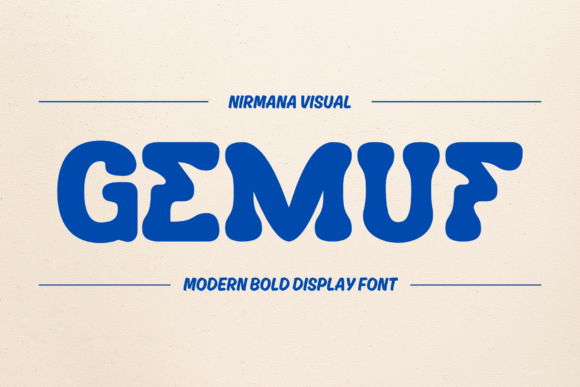
Unlock the Power of Retro Branding with Gemuf Font
Have you ever stared at a blank design canvas, trying to bring your creative vision to life, only to find yourself stuck on the perfect font? We’ve all been there. The struggle is real, but what if you had the perfect font to break through that creative block? Introducing Gemuf – the quintessential Retro Branding Logo Font.
Gemuf Font is designed to provide unparalleled typographic harmony, making it the perfect addition to your design toolkit. Whether you’re working on a dynamic logo, a captivating branding scheme, or an engaging social media post, Gemuf Font has got you covered. With its elegant style and versatility, this font is a valuable asset for designers looking to elevate their designs and stand out from the crowd.
Gemuf Font Key Features
- Font Family: Gemuf Font is a sans-serif typeface with a unique, futuristic design.
- Font Size: Gemuf Font is designed to be highly legible at various font sizes, with optimal readability at 12-24 points.
- Language Support: Gemuf Font supports a wide range of languages, including Latin, Cyrillic, and Greek alphabets.
- Unique Characteristics: Gemuf Font features a distinctive, geometric design with bold lines and rounded edges, making it ideal for futuristic and technological themes.
Gemuf Font Review
Initially, I was drawn to Gemuf Font’s unique, quirky aesthetic. It’s ✨ bold, yet playful, making it a great choice for creative projects or applications where you want to stand out. The font’s customization options are also a major plus, allowing you to fine-tune the style to suit your specific needs.
However, upon closer inspection, I encountered a few issues that detract from the overall experience. Firstly, the font’s legibility can be a concern, especially at smaller font sizes. This is particularly noticeable when using the font for body text or in situations where clarity is crucial.
- Legibility can be a concern at smaller font sizes
- Lack of standard ligatures and swashes can disrupt text flow
- Not ideal for large blocks of body text or formal applications
While Gemuf Font has some great qualities, its limitations prevent me from wholeheartedly recommending it for general use. It’s best suited for specific applications where its unique style can shine, such as in logos, headings, or creative projects. If you’re looking for a more versatile font, you may want to consider other options.
Use Gemuf Font for creative and artistic projects, such as:
- Graphic design and branding
- Typography-based art and illustrations
- Book covers and magazine layouts
For the most effective use of Gemuf Font, experiment with different font sizes, colors, and styles to create a unique and eye-catching design.
Dancing Script is a lively and energetic font that’s perfect for use in designs that require a touch of playfulness and whimsy. It’s ideal for use in social media graphics, advertising materials, and any other project where a sense of fun and excitement is required. Compared to Gemuf Font, Dancing Script has a more dynamic and energetic feel, making it suitable for designs that require a lot of visual interest.